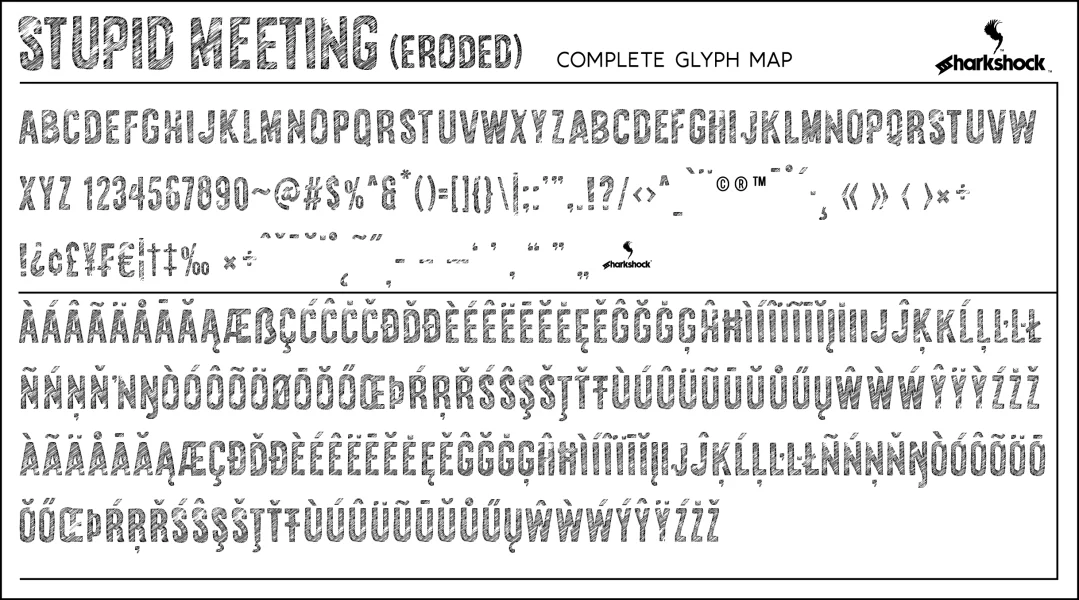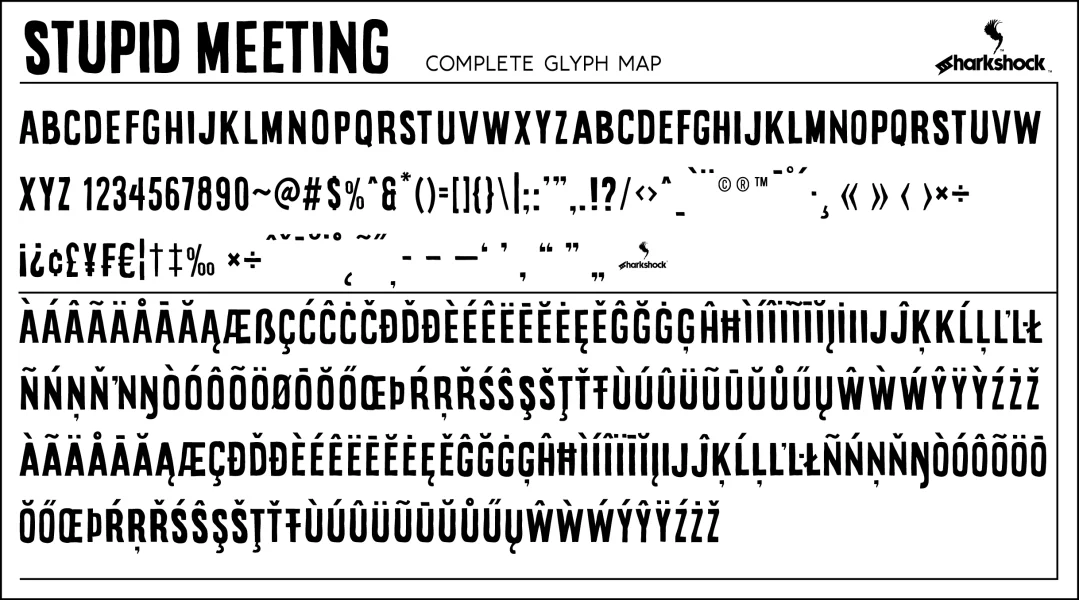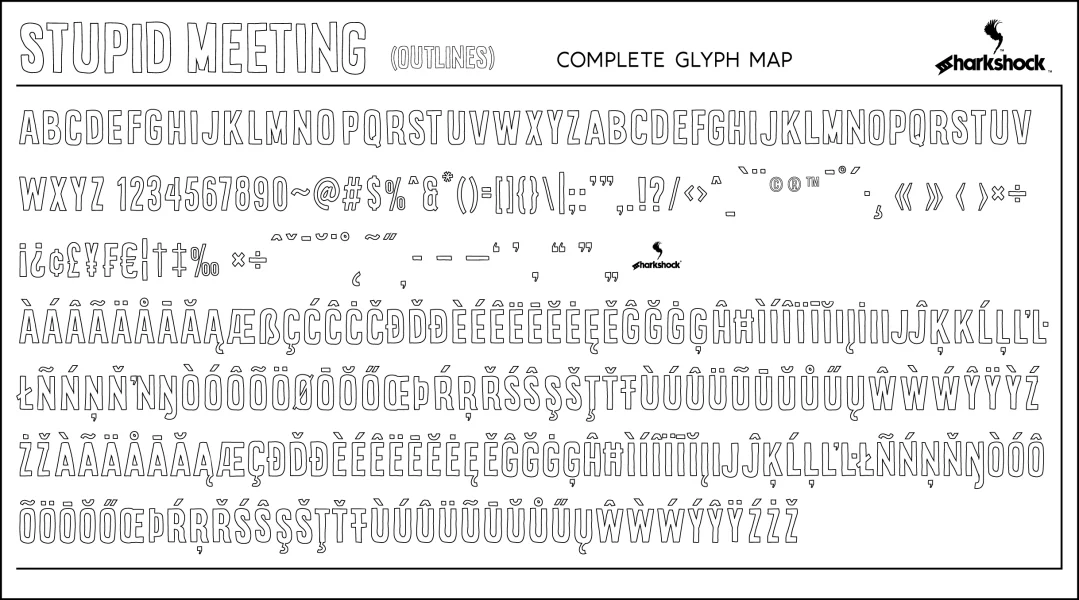
Everyone say hello to Stupid Meeting; an all caps display sans that didn’t quite catch its 8 hours of sleep! A lot of attitude went into designing this corporate inspired masterpiece. From a distance it looks pretty normal but the closer you get, the worse it appears. This 3 member family features basic/advanced Latin, diacritics, punctuation, and kerning. The demo features Basic Latin and limited punctuation only. Use Stupid Meeting for a kids’ book, packaging, or logo. Try the Eroded version for retail posters, social media, or toys. Check the glyph map to make sure the characters you’re interested in are supported. NOTE: Due to glyph complexity of the Eroded version PC users may experience slowdown if viewed in Windows Font Viewer. Please right click file and choose install. The full versions which includes punctuation and numbers is available for $35 (PERSONAL USE only). This $35 does NOT imply a commercial license of any kind. Simply visit http://www.sharkshock.net/pay and confirm which font you’d like. For commercial use please visit this page: http://www.sharkshock.net/license or email us. Commercial usage without a valid end user license agreement (EULA) is strictly forbidden. Thank you for your support!